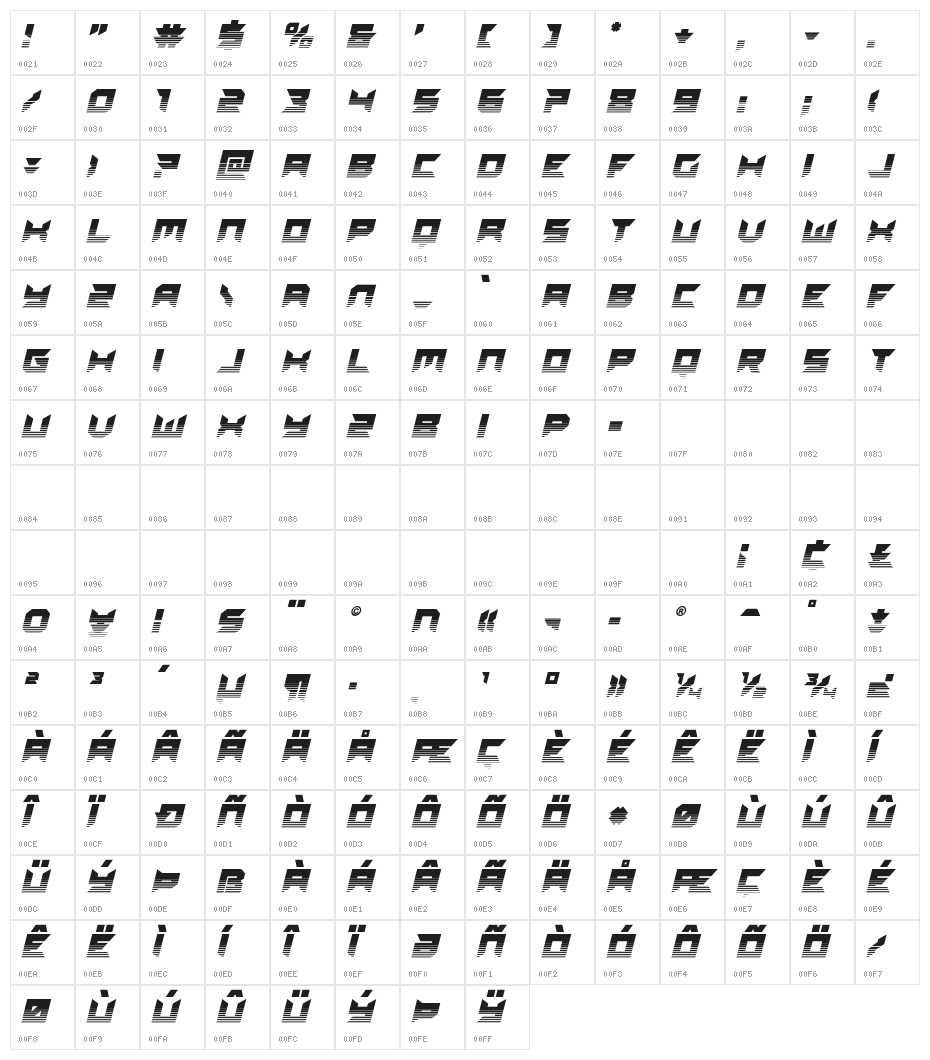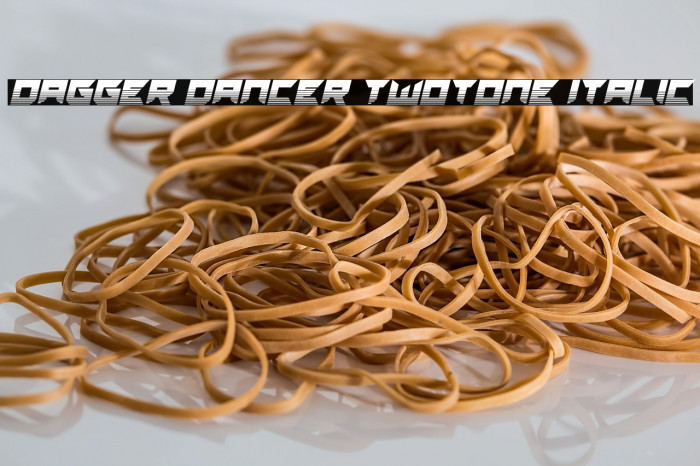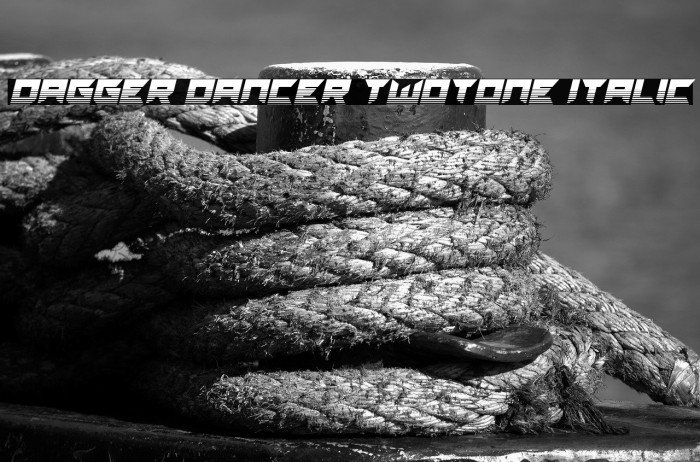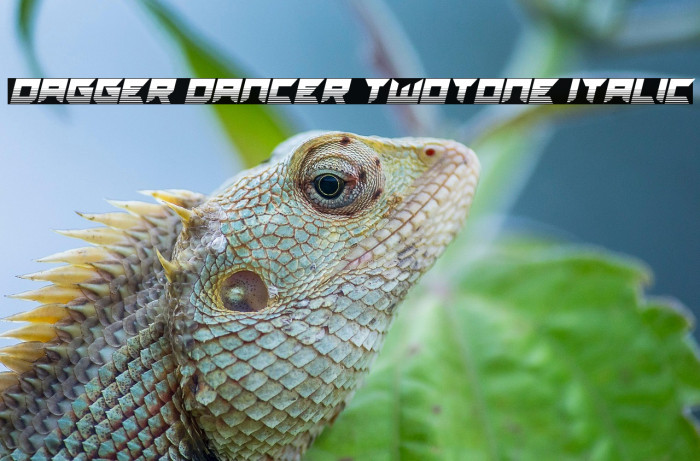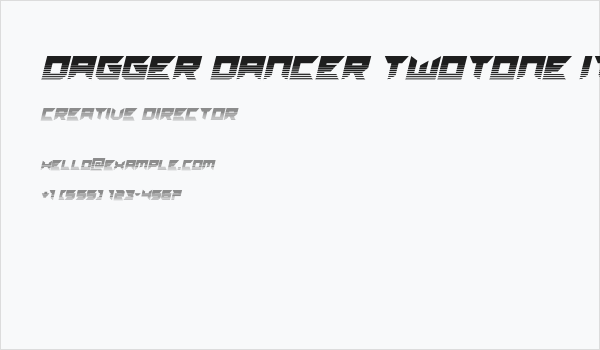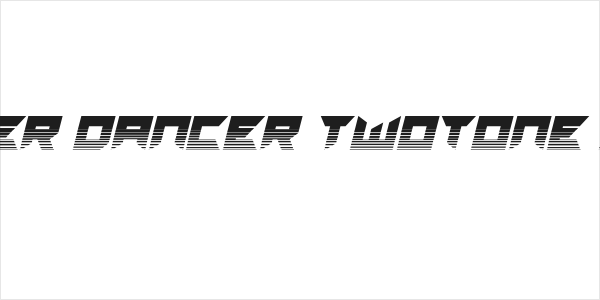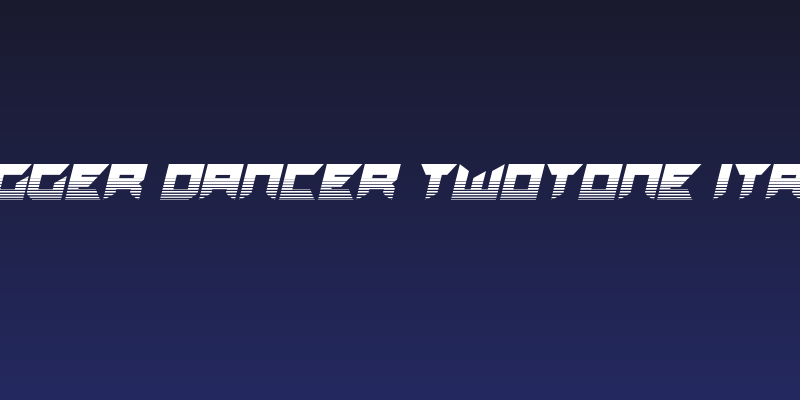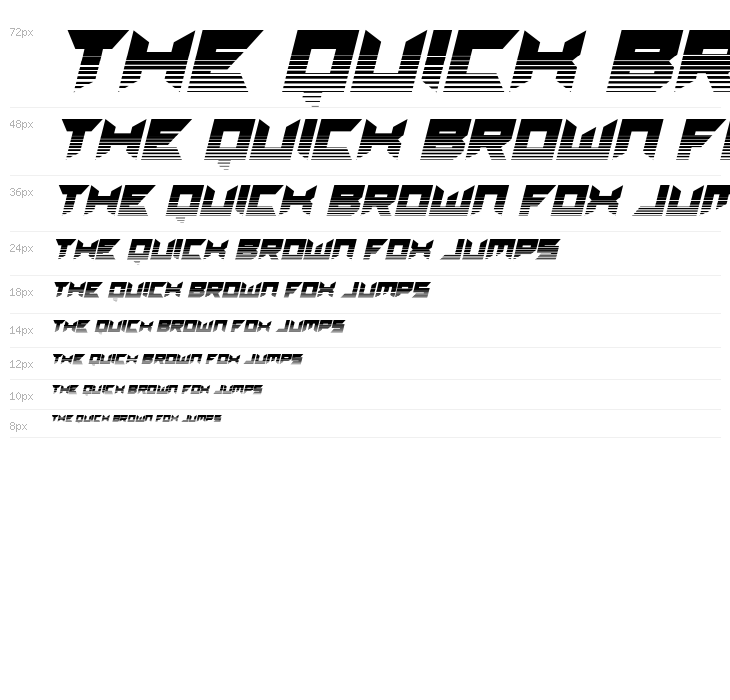
Dagger Dancer Twotone Italic Font
Dagger Dancer Twotone Italic Description
This font features a bold, dynamic design with a futuristic flair. The characters are constructed with a two-tone effect, creating a sense of movement and energy. Each letter is italicized, adding to the sleek and modern aesthetic. The strokes are thick and consistent, providing a strong visual impact. The font's unique style is characterized by its sharp angles and geometric shapes, making it stand out in any design. The spacing between characters is tight, enhancing the compact and cohesive look of the text. This font is ideal for projects that require a bold statement and a contemporary feel.